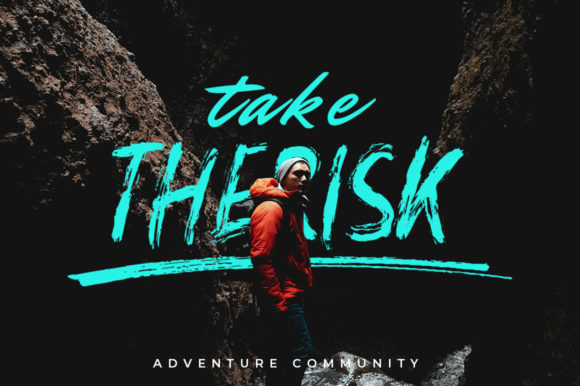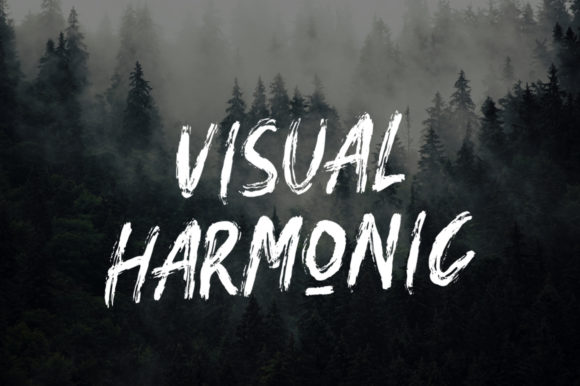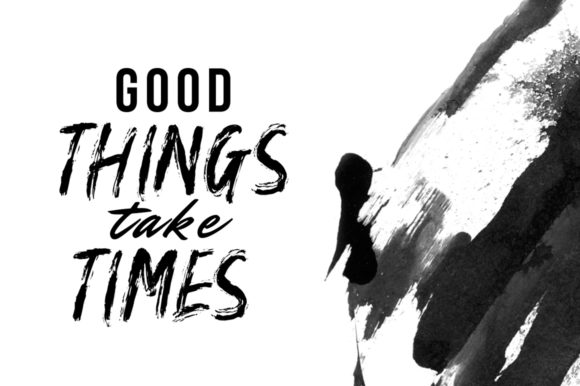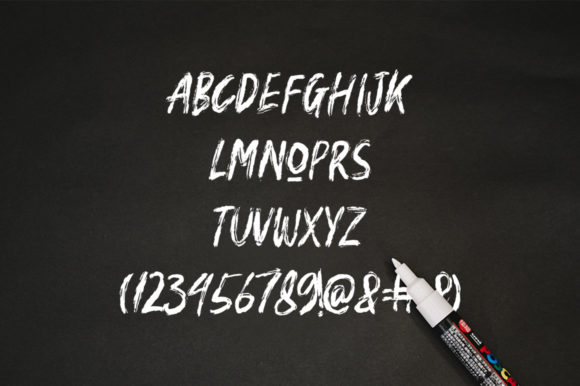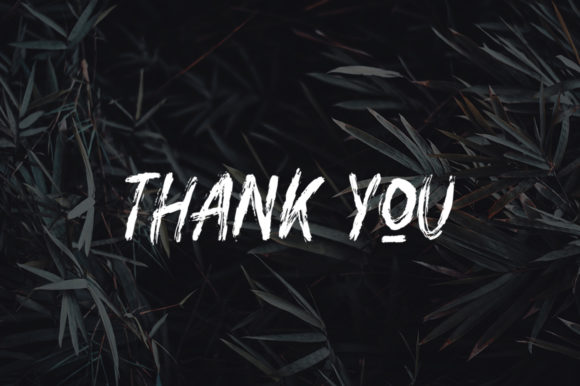
Introduction to Montanas Font
Have you ever stared at a blank page, waiting for inspiration to strike? That’s exactly where I was when I first discovered the Montanas Font. Its rough brush strokes and clear style had me hooked from the very first glance. I knew I had to dive deeper and explore the possibilities of this beautiful font.
As a designer, I’ve always been on the lookout for high-quality fonts that can elevate my creative projects. The Montanas Font is more than just a pretty face – it’s a versatile design resource that can add a touch of personality to any project. Whether you’re working on a free download or a paid commission, this font is sure to impress. Plus, its transparent background makes it easy to combine with other design elements.
With its wide range of applications, from logos to labels, the Montanas Font is a valuable asset for any designer. In this article, we’ll take a closer look at the Montanas Font and explore its many uses, so you can get the most out of this amazing design resource.
Key Features of Montanas Font
- High-quality font with a creative and modern design, perfect for a wide range of projects.
- Unique characteristics include a bold and playful feel, making it an excellent choice for creative projects and designs that require a touch of personality.
Honest Review: Montanas Font
As a designer, I’m always on the lookout for high-quality fonts that can elevate my creative projects. Recently, I stumbled upon the Montanas Font, and I must say it’s been a game-changer.
Here are some things that work well with this font: ✨ Unique and modern design that adds a touch of elegance to any project ✨ Excellent for use in logo designs, posters, and brochures ✨ Free download available, making it an excellent design resource for those on a budget ✨ Offers a transparent background, making it easy to work with in various design applications
However, I do have a few limitations to note: ⚠️ Limited font family options, which might not be ideal for designers who prefer a more extensive range of fonts ⚠️ Not suitable for use in small text sizes, as it may become difficult to read ⚠️ May not be the best choice for designers who prefer a more classic or traditional font style
Overall, I’m impressed with the Montanas Font, and I would definitely recommend it to designers looking for a modern and elegant font to add to their design arsenal.
Montanas Font is commonly used in creative projects that require a bold, eye-catching font. This includes logos, social media graphics, and marketing materials. With its high-quality design and free download availability, Montanas Font is a valuable design resource for any project.